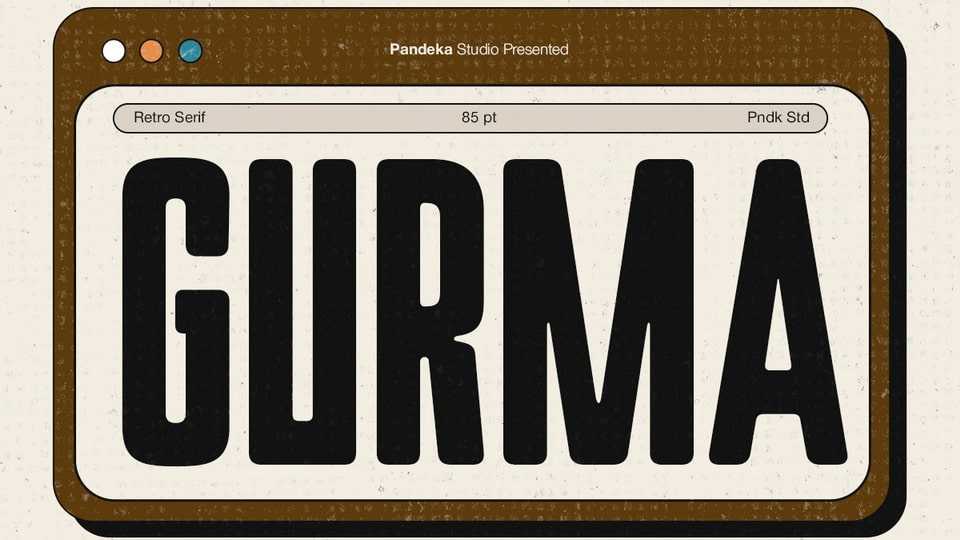
Download Gurma font, a condensed sans serif typeface that blends bold modern lines with a retro-inspired style. Its tall, narrow forms create a strong visual presence, making it perfect for headlines.